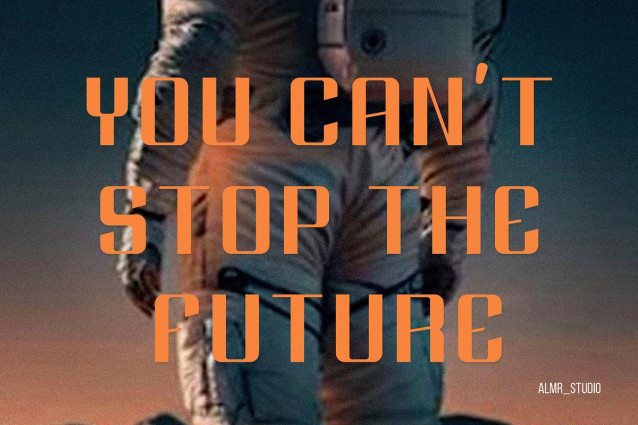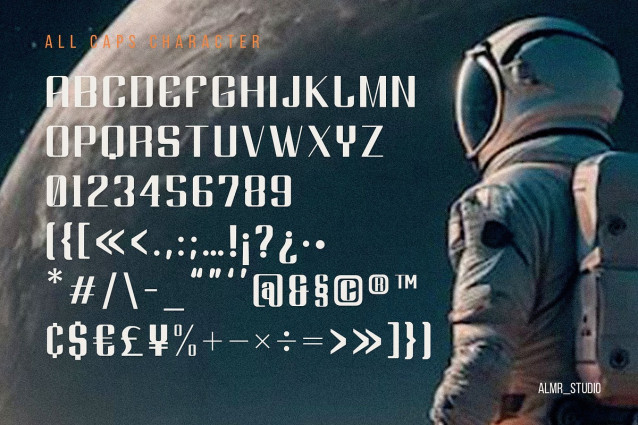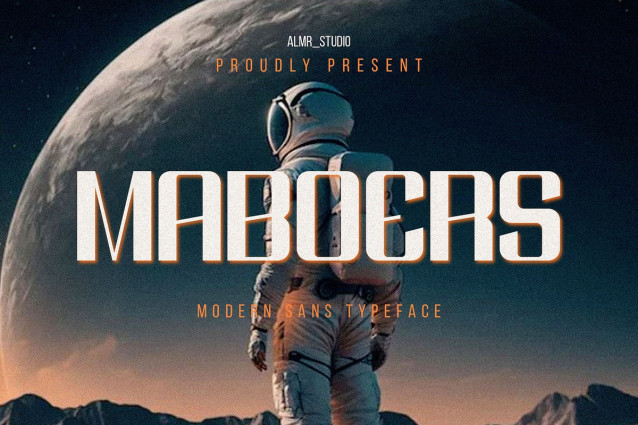
Maboers Font
Maboers Font is a modern, elegant and simple font, best used as a display for headings, logos, branding, magazines, product packaging and invitations.